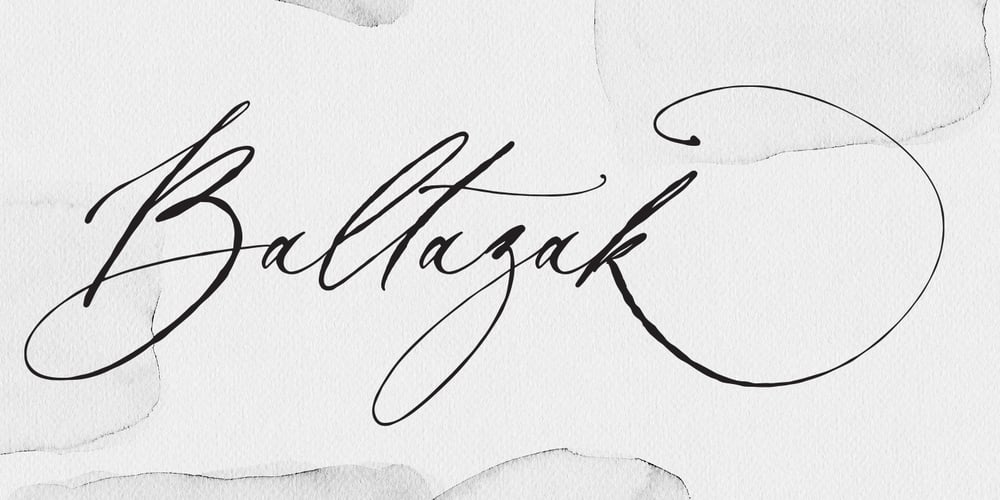
Baltazak
Baltazak font
Baltazak Font Family was designed by Gulya Yeap and published by PeachCreme. Baltazak contains 1 styles and family package options. Ink. Messy Ink. Imperfect letters. Baltazak includes uppercase and lowercase letters, numerals, a large range of punctuation and ligatures. All lowercase letters include ending swashes.